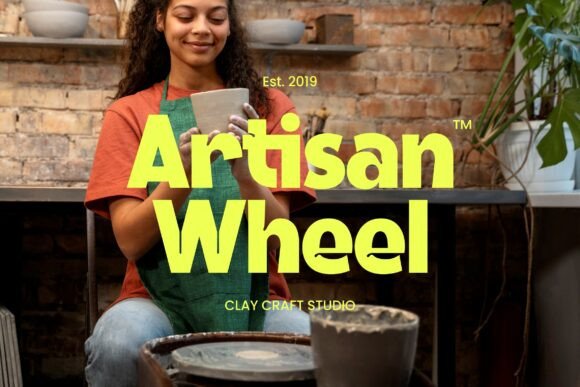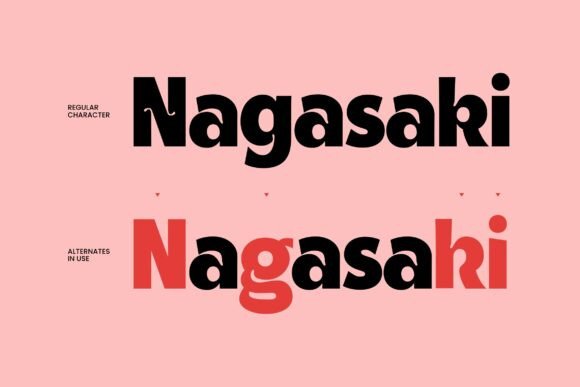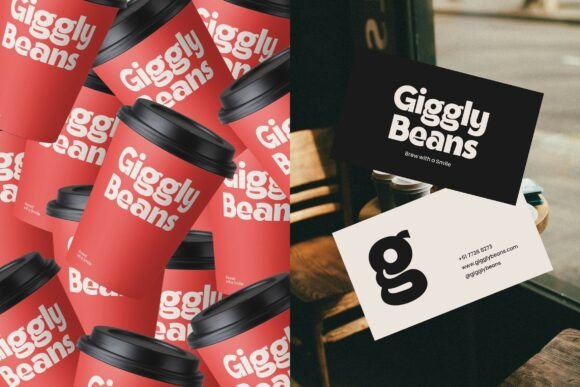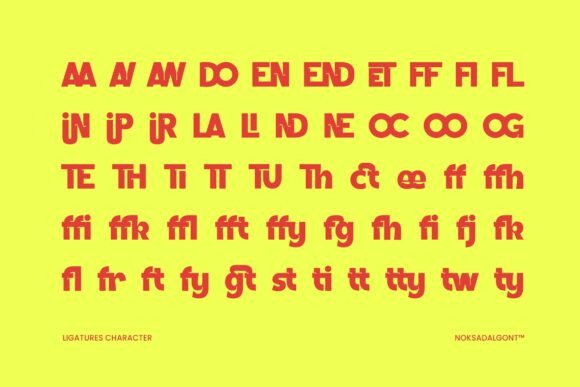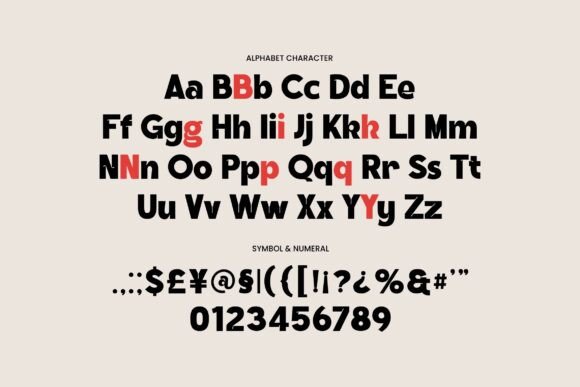
Introduction to Noksa Dalgont Font
Meets Noksa Dalgont, a new, carefully crafted modern sans serif typeface, and has curves in all the right places.
This font generates fun, more trendy and more vibrant It’s a versatile, fun, cut, and beautiful feel that you get in Noksa Dalgont typefaces.
Key Features of Noksa Dalgont Font